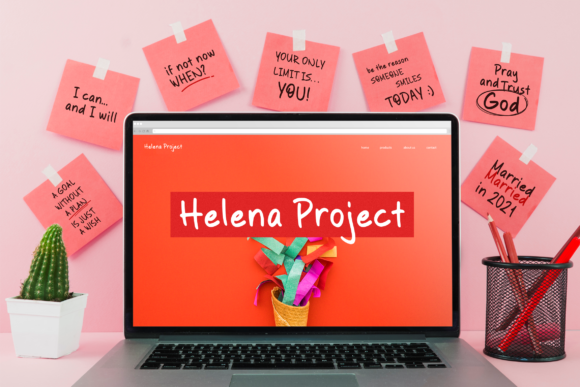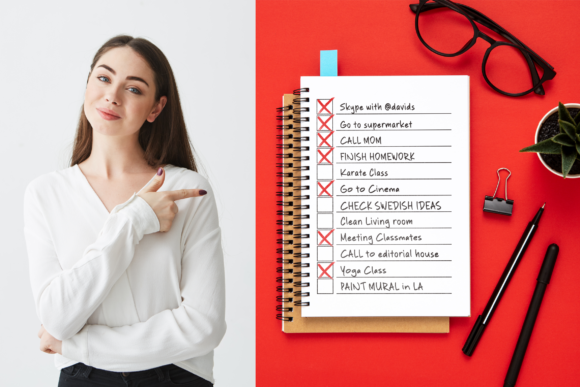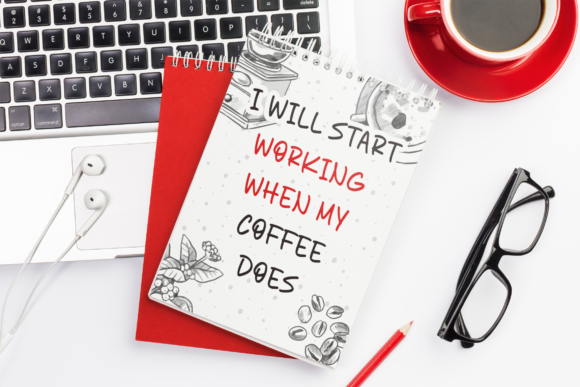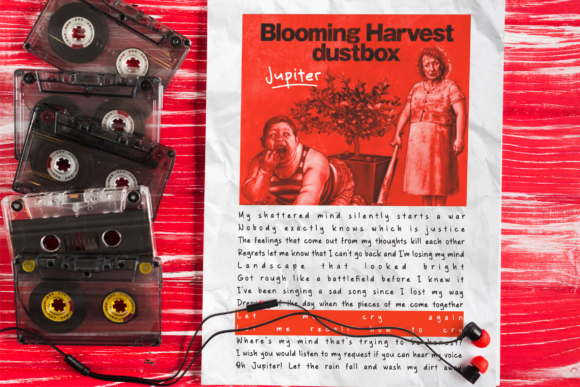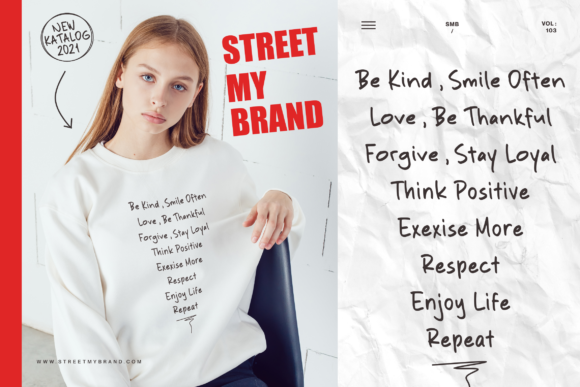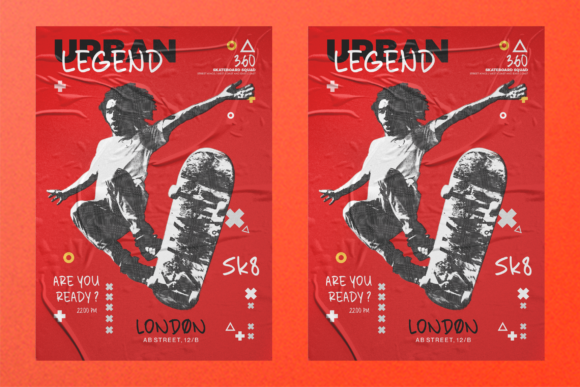
The Quest for the Perfect Font: Discovering Grimnotes
I’ll never forget the time I was working on a project for a children’s game, and I just couldn’t find the right font. I had spent hours scouring the internet, trying out different fonts, but nothing seemed quite right. That was until I stumbled upon Grimnotes. It was like a breath of fresh air – a cool, down-to-earth, and readable handwritten font that perfectly captured the playful spirit of the game. In this article, I’ll share my experience with Grimnotes, and explore its features, uses, and alternatives.
An Honest Review of Grimnotes
What I Love About Grimnotes
- ✨ Readability: Grimnotes is incredibly easy to read, even at small sizes. This makes it perfect for body text, captions, or any other application where legibility is key.
- ✅ Versatility: Whether you’re designing for a children’s game, a cartoon, or just want to add a personal touch to your project, Grimnotes is an excellent choice.
- 💕 Aesthetic: The font has a unique, charming quality that adds a touch of whimsy to any design.
While Grimnotes is an excellent font, it’s not perfect. Here are a few things to keep in mind:
- 🤔 Limited formal applications: Due to its playful nature, Grimnotes may not be the best choice for formal or professional projects.
- ⚠️ Some letters may appear similar: As with any handwritten font, some letters (like “b” and “d”) may appear similar, which can make reading more difficult for some users.
The Story Behind Grimnotes
Grimnotes was designed by a team of creatives who wanted to create a font that was both fun and functional. Inspired by classic handwritten fonts, they crafted Grimnotes to be a versatile and charming addition to any design project. While the exact backstory is unclear, it’s evident that the designers put a lot of thought into creating a font that’s both readable and visually appealing.
Q: What type of projects is Grimnotes best suited for?
A: Grimnotes is perfect for projects that require a playful, down-to-earth feel, such as children’s games, cartoons, educational materials, and casual designs.
Q: Is Grimnotes a difficult font to read?
A: No, Grimnotes is designed to be highly readable, even at small sizes. However, as with any handwritten font, some users may find certain letters or words more difficult to read.